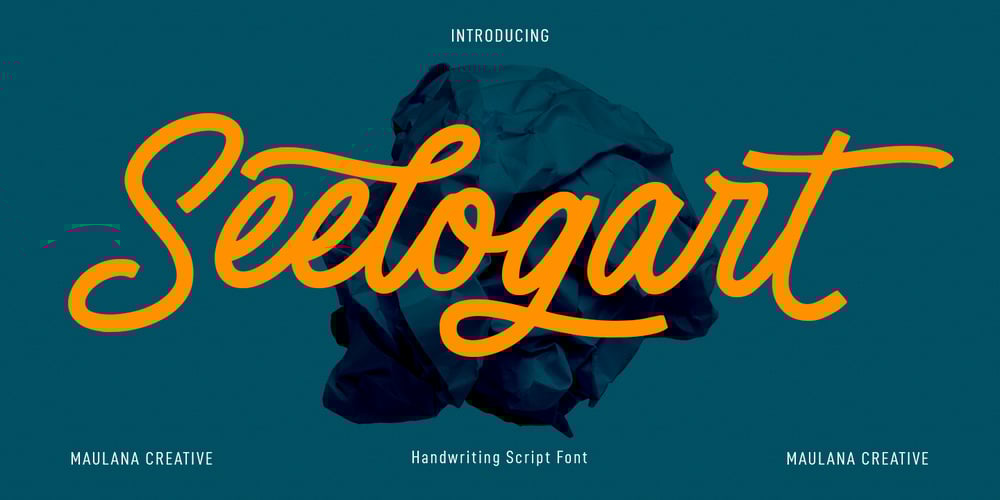
Seelogart Font Family was designed by Gilang Maulana and published by Maulana Creative. Seelogart contains 1 styles and family package options. Seelogart West is a modern signature script font. With sharp nib consist stroke, fun character with a bit of ligatures and alternates. To give you an extra creative work. Seelogart font support multilingual more than 100+ language. This font is good for logo design, Social media, Movie Titles, Books Titles, a short text even a long text letter and good for your secondary text font with sans or serif. Make a stunning work with Seelogart font. Cheers, Maulana Creative